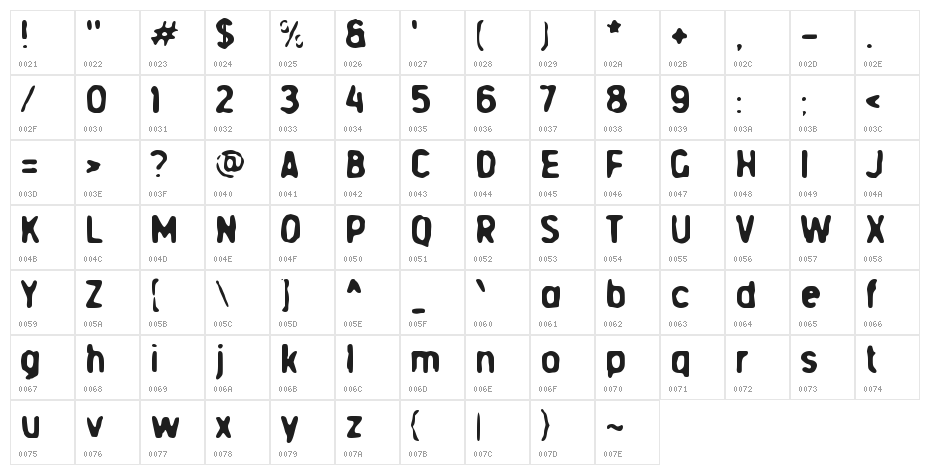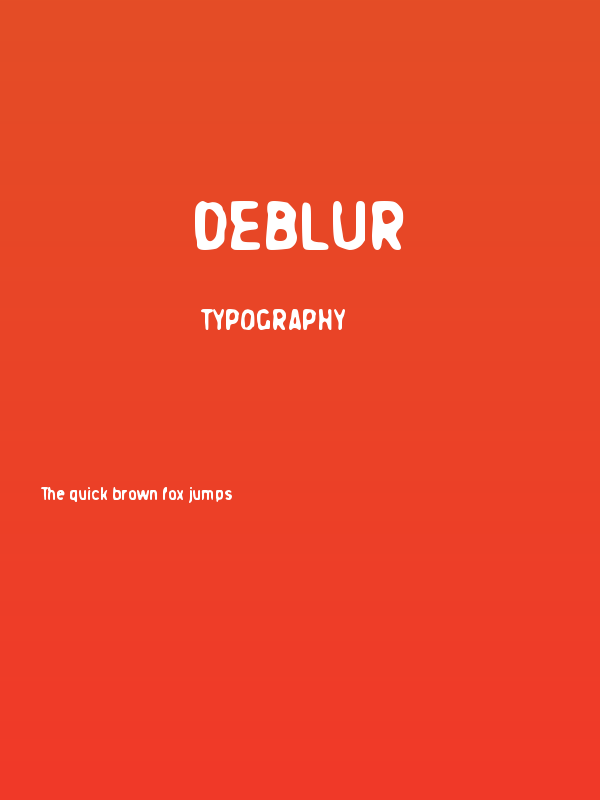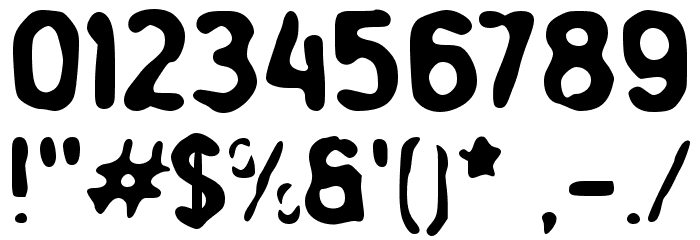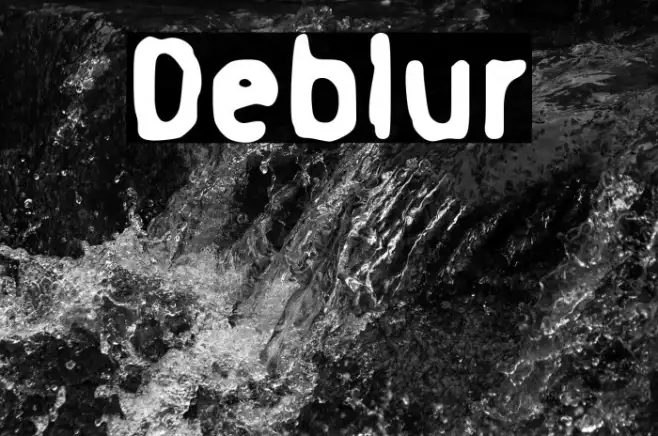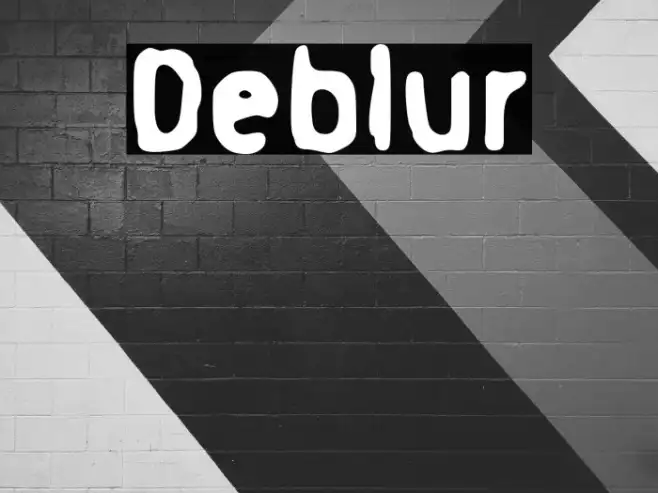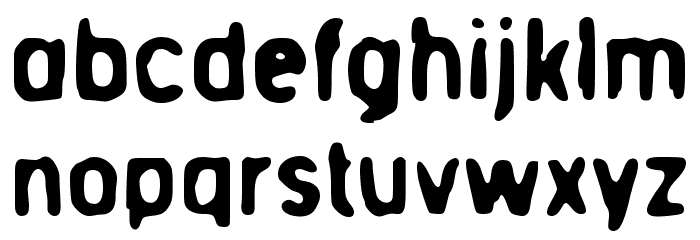
Deblur Font
Deblur Description
This font features a bold and playful design with a hand-drawn aesthetic, characterized by its thick, rounded strokes and slightly irregular shapes. The letters have a whimsical and organic feel, making them stand out with their unique and artistic style. The uppercase and lowercase letters maintain a consistent weight, while the numbers and special characters complement the overall look with their bold and expressive forms. This font exudes a sense of fun and creativity, perfect for projects that require a touch of personality and flair.